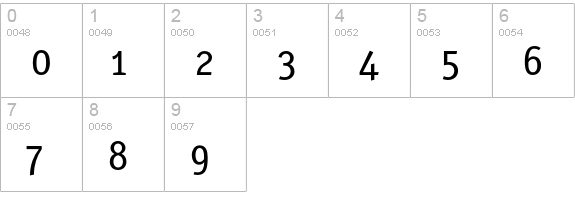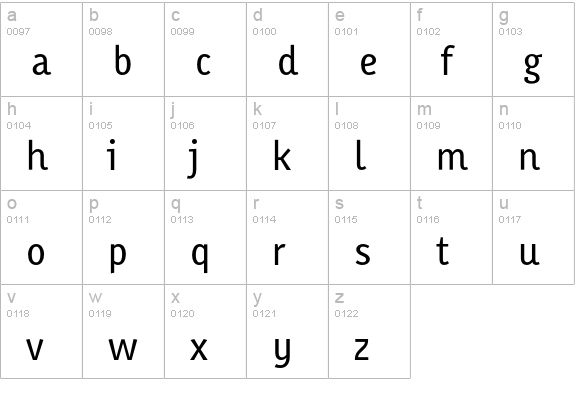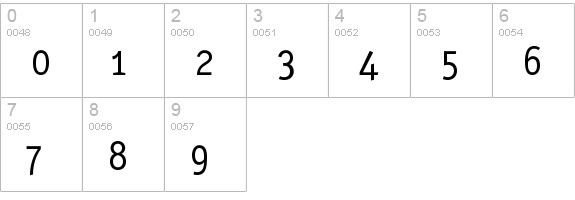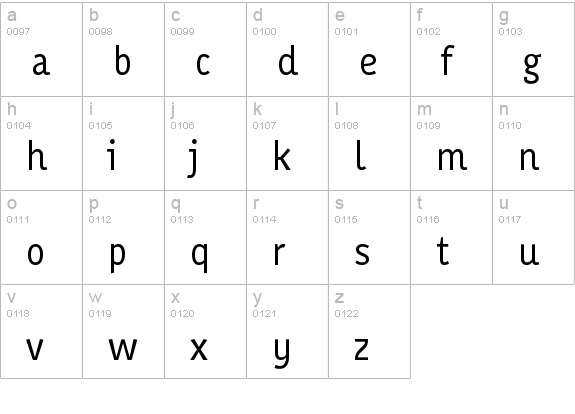
Karbid-Normal is the standard, neutral variant in the Karbid typeface family \xE2\x80\x94 well suited to general body text, paragraphs, and standard typographic work.
Karbid-Normal is a versatile and modern font that effortlessly blends elegance and simplicity. With its clean lines and balanced proportions, this font is perfect for a wide range of design projects, from branding and logos to editorial layouts and web design. The Karbid-Normal font exudes a timeless appeal, making it suitable for both contemporary and classic designs. Its smooth curves and sharp edges give it a professional and polished look, while its subtle details add a touch of uniqueness. One of the best things about Karbid-Normal is that it is free. Yes, you read that right - this exceptional font is freely available to download at FontsMarket.com. This means that you can use it in your projects without any restrictions, whether you're a professional designer or simply someone with a passion for typography. Downloading and installing Karbid-Normal is a breeze. Once you have it in your font library, you'll find yourself reaching for it time and time again. Its versatility allows it to work well in various sizes and weights, making it suitable for both headings and body text. Whether you're working on a corporate identity project, designing a website, or creating beautiful prints, Karbid-Normal will elevate your designs to new heights. Its clean and modern aesthetic will captivate your audience and leave a lasting impression. So, why wait? Go ahead and download Karbid-Normal for free at FontsMarket.com. Make your designs stand out with this exceptional font and let your creativity shine.